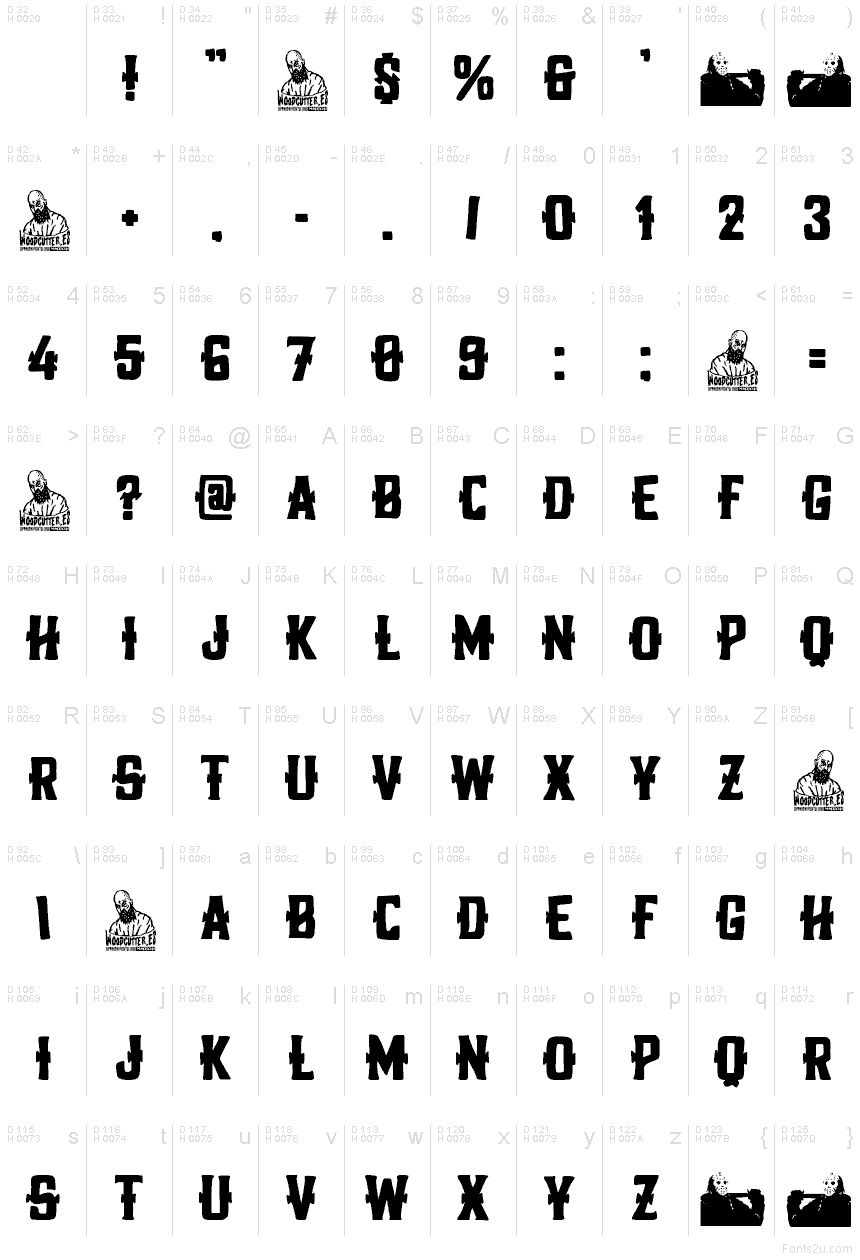
Unlucky Days
Unlucky Days font by Woodcutter is a bold distressed font with a rugged and aged look. If it feels familiar, that’s because of its undeniable similarity with historical fonts from retro times. However, Unlucky Days still manages to create something unique through its deteriorated-looking characters.
This display font is striking enough to add strong presence to headlines or branding projects\nIt can be used in print items like posters, flyers, and greeting cards. It’s also one of the best new web fonts for websites and mobile applications. This free display font is also ideal for product packaging designs including food boxes, paper bags, cans, bottles/labels., books/magazines covers